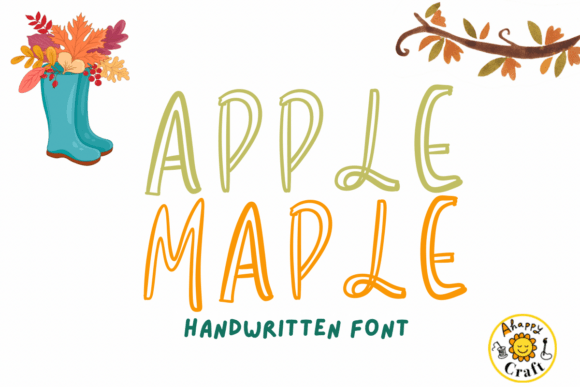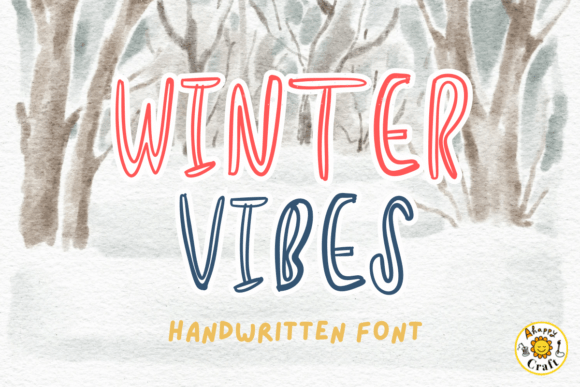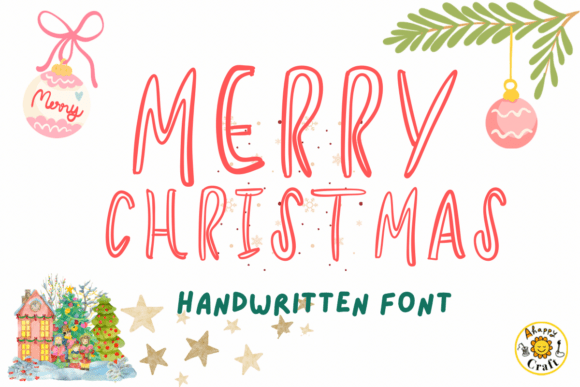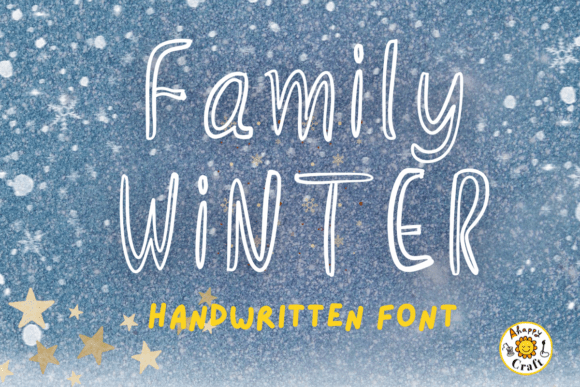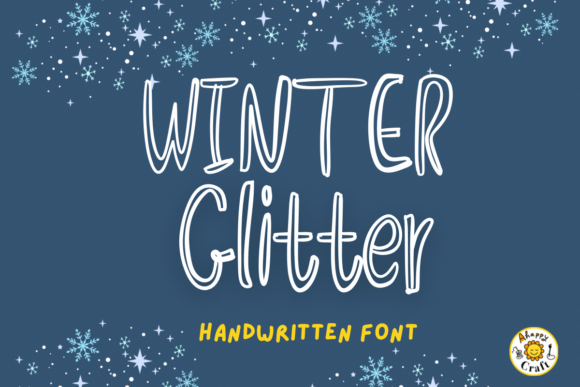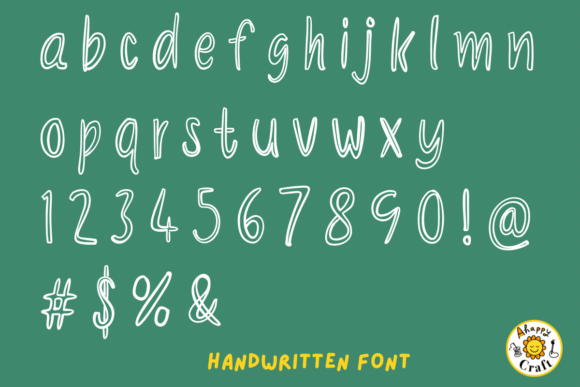
The Art of Imperfection: Unlocking the Magic of Free Hand Font
Have you ever found yourself doodling on a piece of paper, letting your pen wander across the page in a joyful dance of lines and curves? That’s the magic of creating with a free hand, and it’s exactly what the Free Hand Font embodies. This sweet and friendly handwritten font is the perfect companion for designers who crave a more natural, unique style.
Free Hand Font is more than just a font – it’s a tool for self-expression and creativity. Its organic design makes it incredibly versatile, fitting seamlessly into a wide range of projects, from elegant invitations to playful social media graphics. Whether you’re a seasoned designer or just starting out, Free Hand Font is an invaluable addition to your toolkit.
Key Features of Free Hand Font
- Unique Characteristics: Free Hand Font features a unique, hand-drawn design with subtle imperfections, giving it a personal and artistic touch. The font is ideal for creative projects, such as logos, posters, and advertisements.
Free Hand Font Review
I must say, I was quite intrigued by the concept of the Free Hand Font. At first glance, it seems like a unique and playful addition to any design project. ✨ The font’s handwritten feel can add a touch of personality to your text, making it stand out from more traditional fonts.
One of the things that works well for this font is its versatility. It can be used for a wide range of projects, from social media graphics to advertisements. It’s also quite easy to read, which is a must for any font. ✨ Additionally, the font comes in a variety of styles, including bold and italic, which can be useful for creating visual hierarchy.
- ⚠️ The font may not be suitable for formal or professional projects, as it can come across as too casual.
- ⚠️ The font’s handwriting feel can be inconsistent, which may lead to some users having trouble reading it.
- ⚠️ The font is not suitable for small text sizes, as it can become difficult to read.
Overall, I would say that the Free Hand Font is a solid choice for designers who want to add some personality to their projects. While it may not be suitable for every project, it can be a great addition to a designer’s toolkit. With a little creativity and experimentation, it’s easy to see the potential of this font.